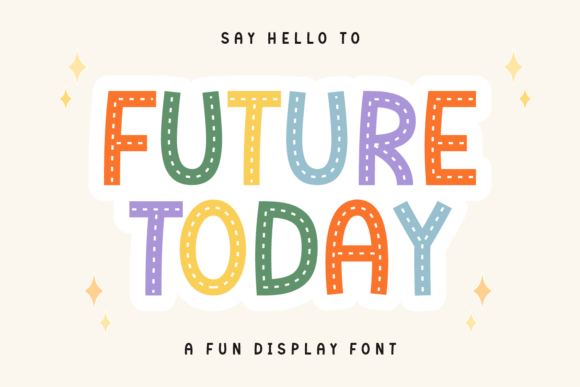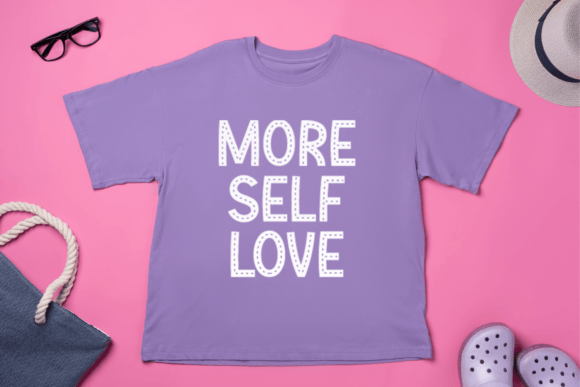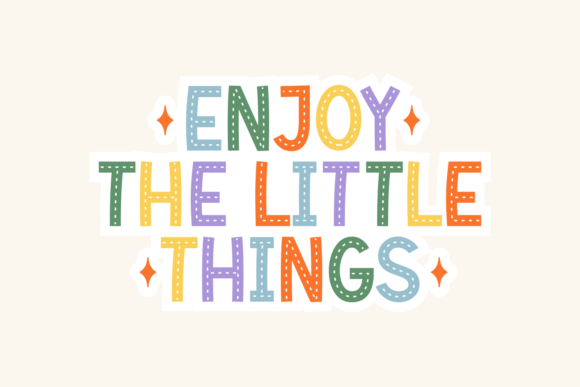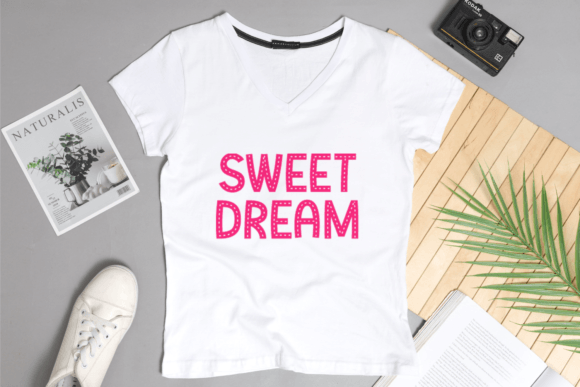
Future Today Font
About the Future Today Font
Get ready to be inspired by Future Today Font, a fresh and dynamic typeface for modern creators. Future Today is a unique display font characterized by its dotted line design. Each letter is composed of a series of dots arranged in the shape of traditional letterforms, creating a futuristic and abstract appearance. The dotted line style gives the font a sense of movement and dynamism as if each letter is a constellation of points waiting to be connected.
With its modern and minimalist aesthetic, “Future Today” is perfect for creating eye-catching headlines, titles, and logos that stand out from the crowd. Its unconventional design adds a contemporary and edgy touch to any project, making it ideal for use in branding, advertising, and digital media where a bold and innovative typographic statement is desired.
Future Today Font Usage Examples
Future Today Font Example